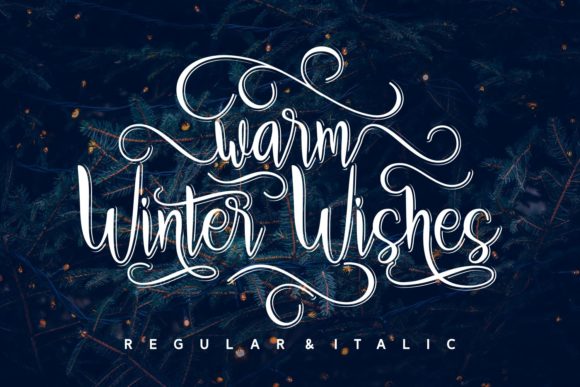
Welcome to the enchanting realm of Warm Winter Wishes, a script font family that captures the essence of the season's magic. With its flowing lines and graceful curves, Warm Winter Wishes invites you to embrace the beauty and wonder of the coldest, coziest time of the year.
Immerse yourself in the timeless charm of Warm Winter Wishes. Its elegant characters dance across your screen, evoking feelings of warmth, nostalgia, and pure joy. Each letter is a delicate snowflake, forming words that are as beautiful as they are meaningful.
Step into a winter wonderland, where every design project transforms into a captivating masterpiece. Whether you're creating holiday greetings, heartwarming invitations, whimsical logos, or enchanting social media posts, Warm Winter Wishes adds a touch of magic that will leave your audience spellbound.
With Warm Winter Wishes, you're not just downloading a font; you're inviting the spirit of the season into your creative space. Feel the warmth of a crackling fire, the coziness of a thick blanket, and the excitement of a fresh snowfall as you bring your designs to life.
Whether you're a seasoned design professional or just starting your creative journey, Warm Winter Wishes is the perfect companion. Its user-friendly nature makes it accessible to all, while its versatility allows you to explore endless possibilities.